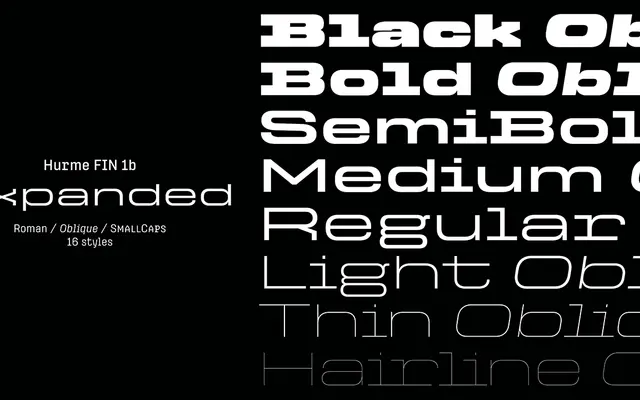
Hurme FIN 1b Expanded
The Expanded width cut of Hurme FIN 1b, a monolinear grotesque with an alternative angular character set that bridges its monospace and standard grotesque siblings.
Hurme FIN 1b Expanded is one of nine width variants within the broader FIN family, offering eight weights from Hairline to Black with matching obliques across all cuts. The 1b character set defaults to angular, monospace-inspired letterforms with slab-serif details, distinguishable from the more conventional FIN 1a but sharing the same underlying design space. Purchasing FIN 1b includes the corresponding weights of FIN 1a, and the family covers an extensive range of Latin-based languages with a full suite of OpenType features including small caps, oldstyle figures and discretionary ligatures.
A monolinear sans-serif with horizontal stroke terminals and a simplified grotesque structure, though FIN 1b introduces angular, monospace-inspired characters with slab-serif details as an alternative character set, positioning it between a pure grotesque and a monospace design.